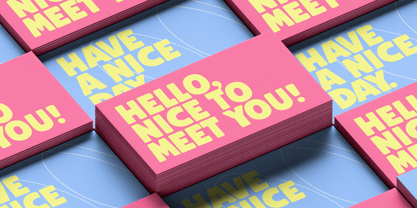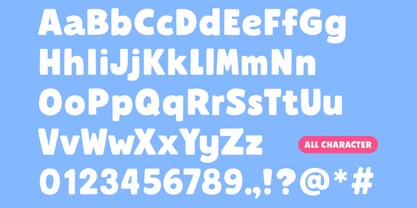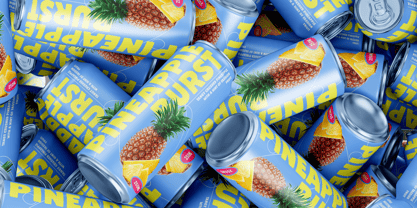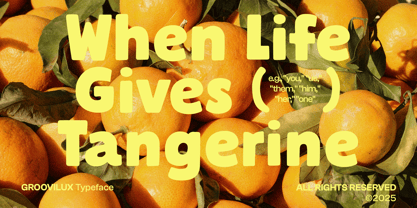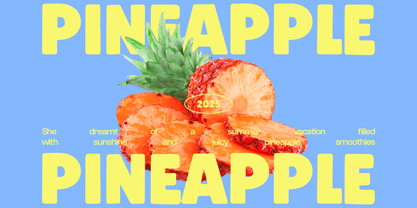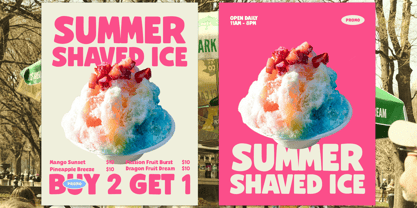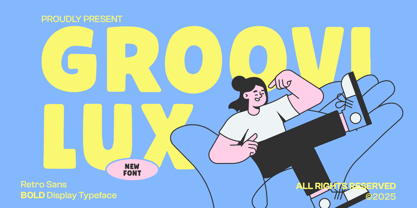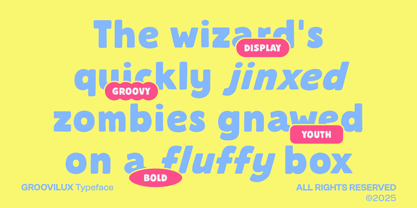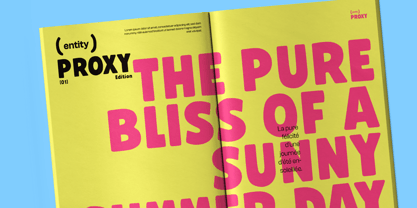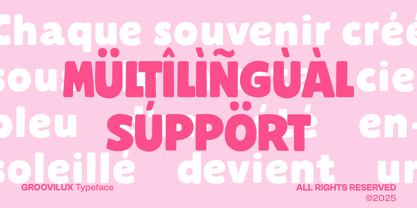
CF Groovilux
by Indotype
The CF Groovilux Font Family was designed by Dede Kurniawan and published by Indotype. CF Groovilux contains 2 styles and family package options. More about this family
GROOVILUX is a bold retro sans typeface that channels the playful charm of 70s pop culture with a fresh, modern twist. Its chunky curves, soft terminals, and vibrant energy make it the perfect choice for projects that want to feel joyful, nostalgic, and full of character. Whether you're crafting funky posters, children's book covers, colorful branding, or social media graphics, GROOVILUX brings instant groove and warmth to your typography. Designed for bold statements and happy vibes, GROOVILUX thrives in big sizes and colorful palettes. A great fit for lifestyle brands, music events, retro-themed packaging, and any design that dares to smile.
Designers: Dede Kurniawan
Foundry: Indotype